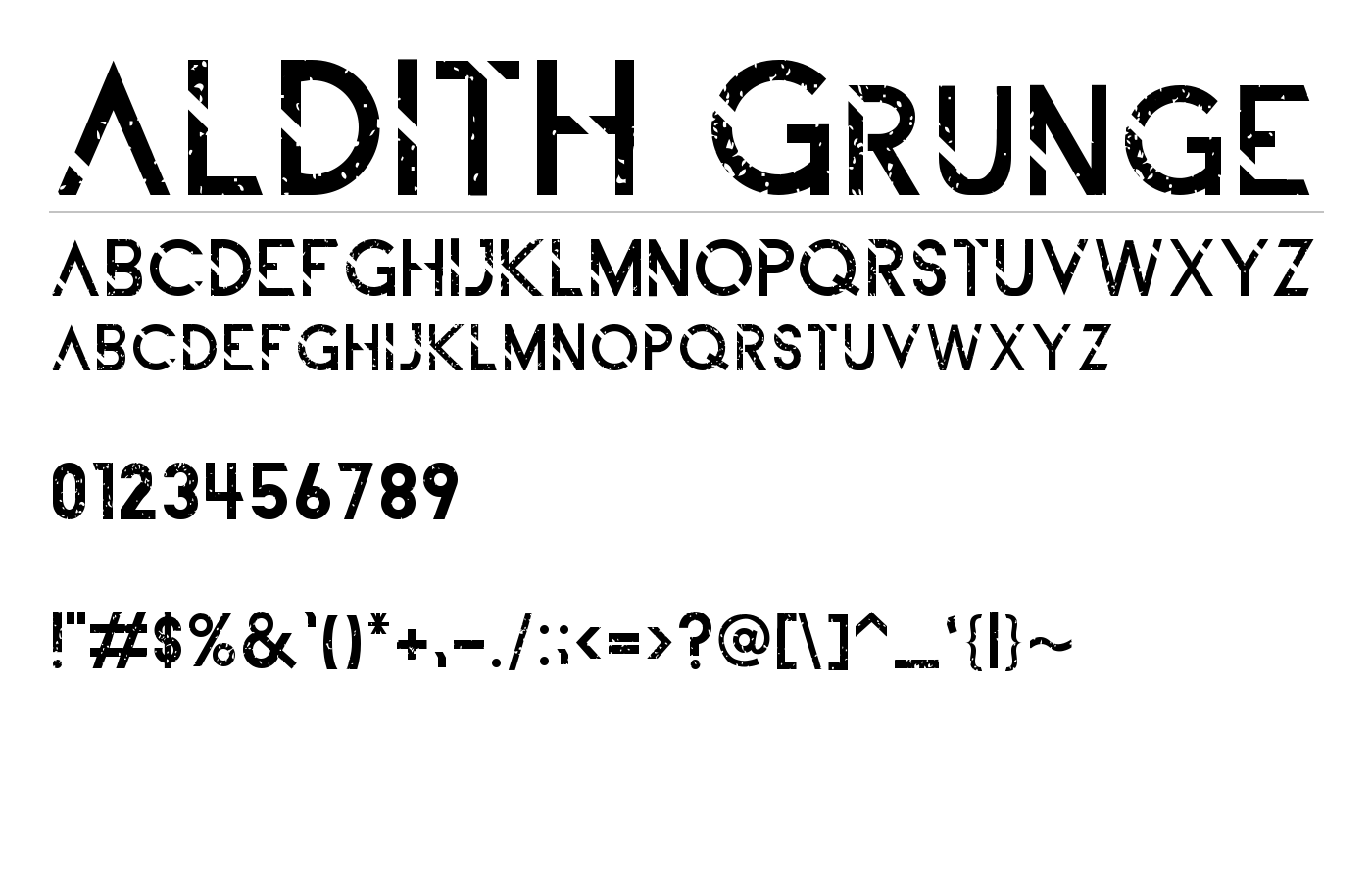
ALDITH is a bold, geometric sans serif font with a strong industrial feel, enhanced by its distinctive grunge texture that adds a rugged, worn look. Its uppercase-only style with sharp angles and clean lines creates a striking, modern appearance, perfect for edgy branding, posters, or headlines that want to convey toughness and urban attitude. This font works best in creative projects that need a bold statement with a raw, vintage-inspired vibe.
ALDITH Font
About ALDITH Font
| Font family | ALDITH Font |
| Designer | Aghnia |